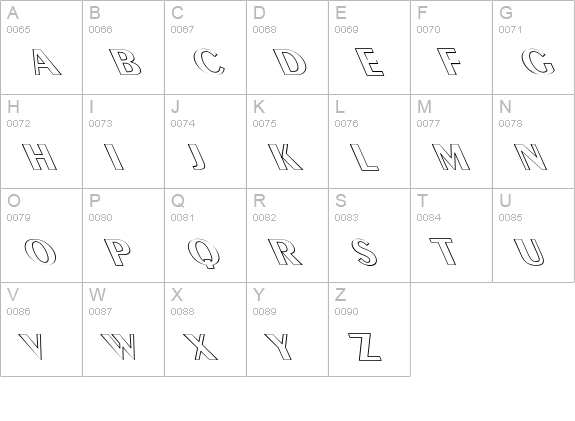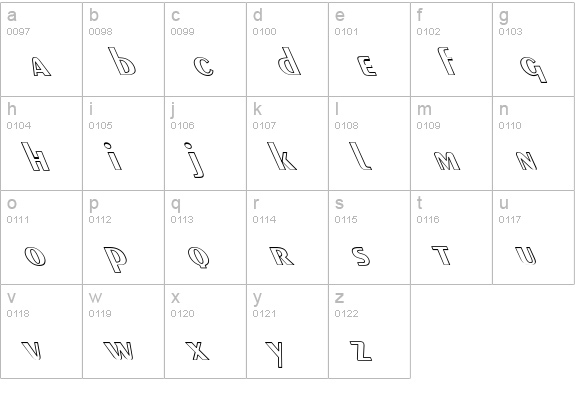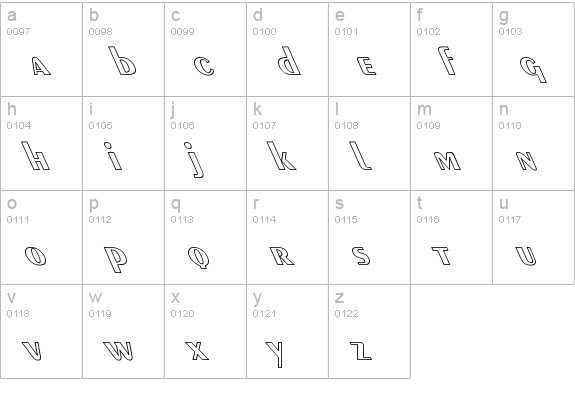
Exotic Bold Hollow Lefty Font Details
Exotic Bold Hollow Lefty is a strong, high-contrast variant in the Exotic typeface family \xE2\x80\x94 well suited to headlines, attention-grabbing titles, and strong calls-to-action.
Introducing Exotic Bold Hollow Lefty font, a striking and unique typeface that is sure to make a bold statement in any design project. This font features intricate hollow details and a left-leaning slant that adds an exotic flair to your text. Exotic Bold Hollow Lefty font is perfect for creating eye-catching headlines, posters, logos, and more. Its bold and daring appearance will command attention and leave a lasting impression on your audience. The best part? Exotic Bold Hollow Lefty font is available for free download at FontsMarket.com. So why wait? Elevate your designs with this one-of-a-kind typeface today!